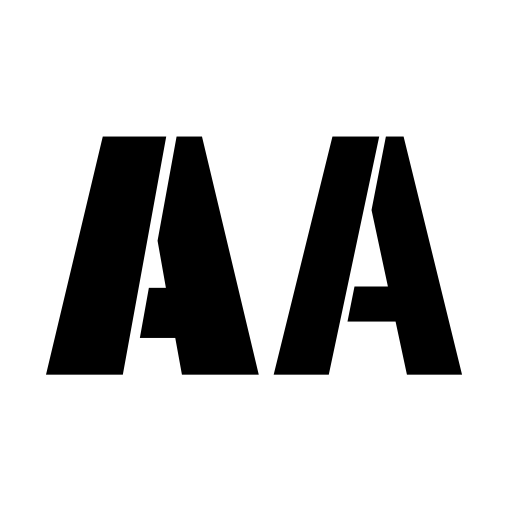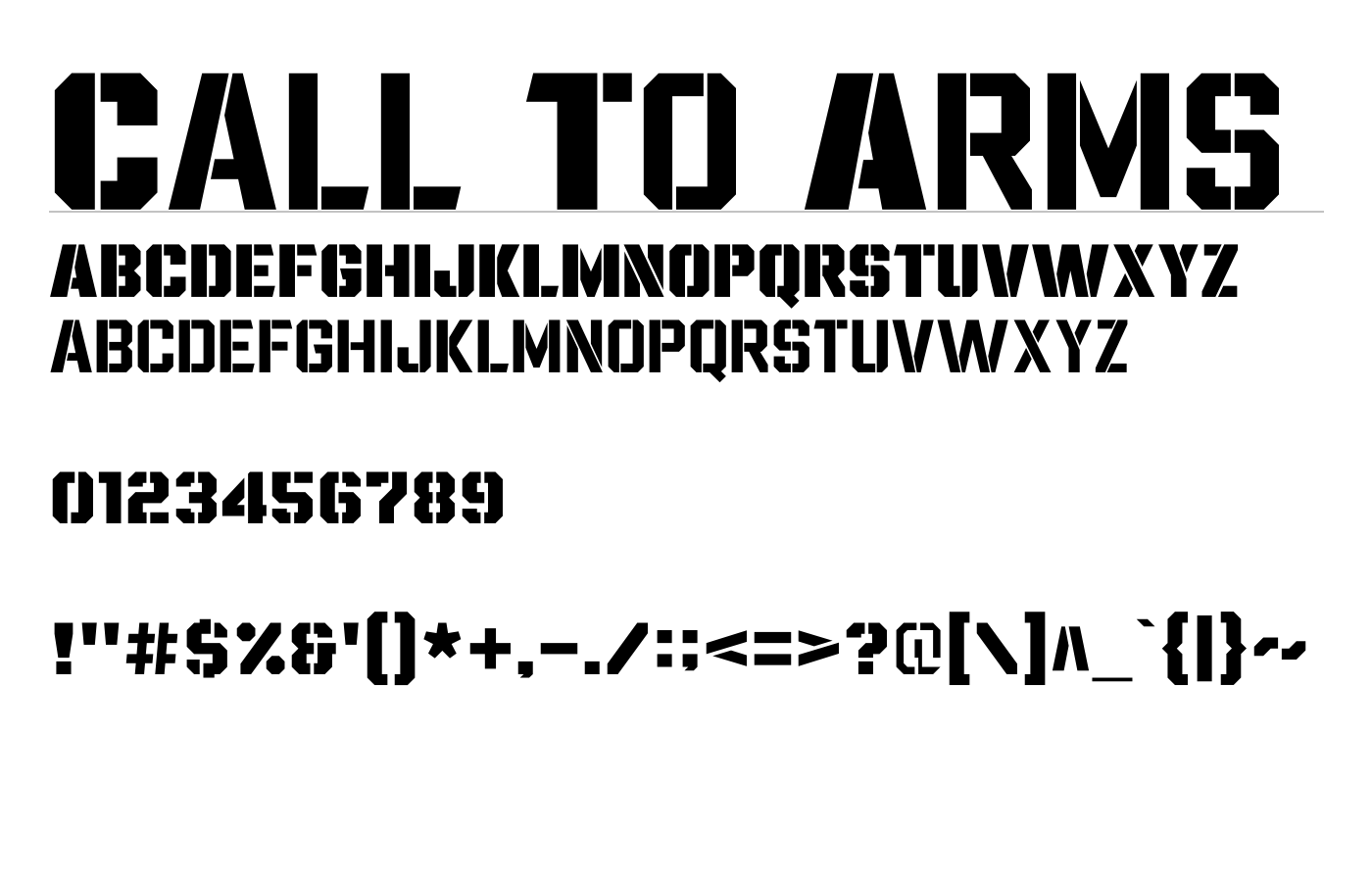
Call To Arms is a bold, condensed sans serif font with a distinctive stencil style that gives it a strong, industrial feel. Its heavy weight and sharp, geometric shapes make it ideal for powerful headlines, posters, and branding that needs a rugged, commanding presence. This font works well for military, sports, or urban-themed designs where a bold, impactful statement is key.
Call To Arms Font
About Call To Arms Font
| Font family | Call To Arms Font |
| Designer | Nestor Villarroya |